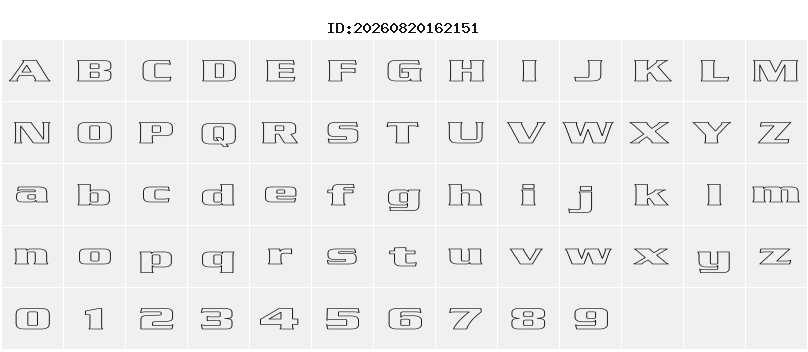
About Serpentine-Bold-Bold HE.ttf
Serpentine-Bold-Bold HE.ttf is a modern, elegant sans-serif font designed for ultimate readability and visual harmony. Perfect for branding, headlines, web design, and print materials.